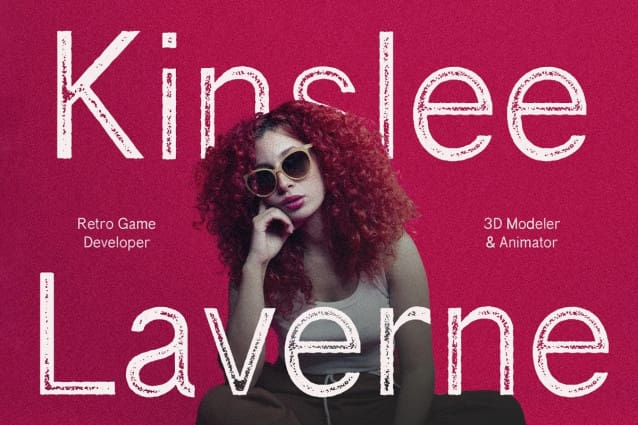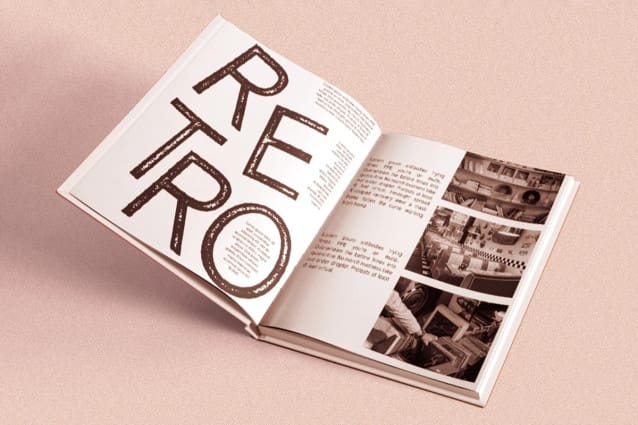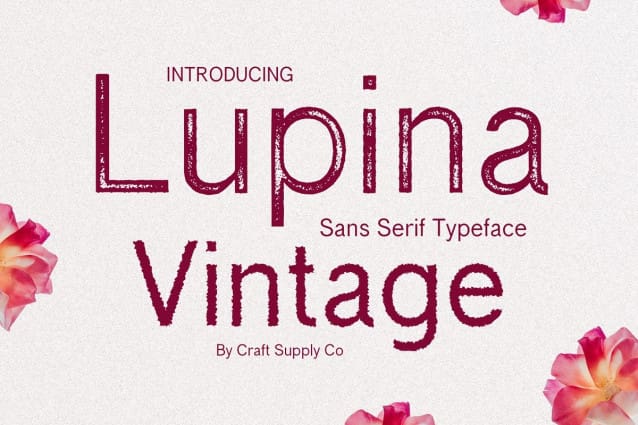
Lupina Vintage Font
Lupina Vintage Font, exudes a sense of nostalgia, making it ideal for projects that aim to evoke a retro feel. Its classic letterforms transport you back in time, creating a timeless appeal.
Stamp of Authenticity The stamp style in Lupina Vintage adds a touch of authenticity to your designs. Each character looks like it’s been stamped onto the canvas, giving your work a unique and handcrafted look.
Rough and Ready Lupina Vintage doesn’t shy away from imperfections. Its rough texture adds character and a sense of rawness to your designs, making them stand out in a world of polished aesthetics.
Hand-Drawn Charm With Lupina Vintage, it’s like having a hand-drawn font at your fingertips. The imperfect lines and edges bring a warm, inviting feel to your projects, making them feel personal and approachable.
In summary, Lupina Vintage – Sans Serif Font is the perfect choice if you want to infuse your designs with vintage charm, stamp-style authenticity, rough textures, and hand-drawn appeal. Whether you’re creating posters, logos, or social media graphics, LupinaVintage brings a touch of nostalgia and uniqueness to every project. Give your designs that extra flair with this versatile font.